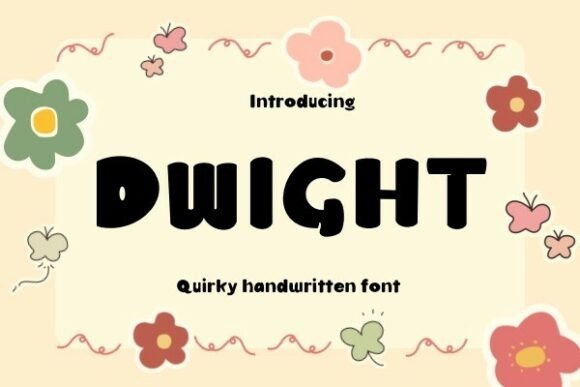
Discover the Allure of the Dwight Font
Have you ever been stuck in front of a blank canvas, struggling to find the perfect font to bring your creative vision to life? We’ve all been there – the blank stare, the cursor blinking, the frustration growing. But what if we told you that there’s a font that can change all that?
Enter the Dwight Font, a captivating handwriting-style typography that’s perfect for breathing life into your designs. This unique font is ideal for posters, t-shirts, mugs, greeting cards, invitations, and even mockups. Its simple yet striking design adds a layer of sophistication to any creative project, making it a valuable addition to any designer’s toolkit.
Whether you’re a seasoned pro or a budding designer, the Dwight Font is sure to inspire your next creative project. Its elegance and charm are hard to resist, and its versatility makes it a must-have for any design enthusiast.
Dwight Font Key Features
- Unique Characteristics: The Dwight font features a unique blend of modern and vintage elements, making it suitable for a wide range of design projects, from logos to typography.
Dwight Font Review
I recently had the chance to work with the Dwight font, and I have to say, it’s an interesting choice. Overall, I’d give it a solid 3 out of 5 stars.
- Unique aesthetic: The Dwight font has a quirky, hand-drawn feel that’s perfect for adding a touch of personality to your designs.
- Good legibility: Despite its unconventional look, the font is surprisingly easy to read, especially at larger sizes.
- Expressive possibilities: The Dwight font’s irregularities make it ideal for creating dynamic, emotive typography that grabs attention.
- Consistency issues: The font’s inconsistent line widths and irregularities can make it challenging to use in longer blocks of text.
- Not suitable for body copy: Due to its playful, expressive nature, the Dwight font isn’t the best choice for large amounts of body text.
- Limited versatility: The font’s unique style may not lend itself well to a wide range of design applications.
Overall impression
The Dwight font is a great choice for designers looking to add a touch of whimsy and personality to their work. However, it may not be the best fit for more traditional or formal design projects. With its unique aesthetic and good legibility, it’s a great option for creating eye-catching headings and titles.
Tips for Getting the Most Out of Dwight Font
To get the most out of Dwight font, use it sparingly to create emphasis and add visual interest to your design. Pair it with other fonts to create a unique and eye-catching combination. Experiment with different font sizes and styles to find the perfect balance for your design.
The Dwight font is commonly used in:
- Designing bold and playful logos.
- Creating eye-catching social media graphics.
- Adding a touch of personality to presentations and documents.